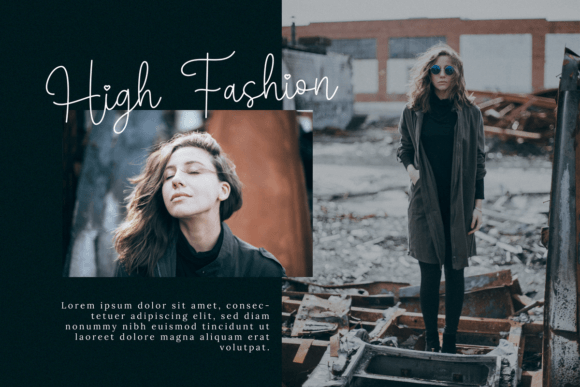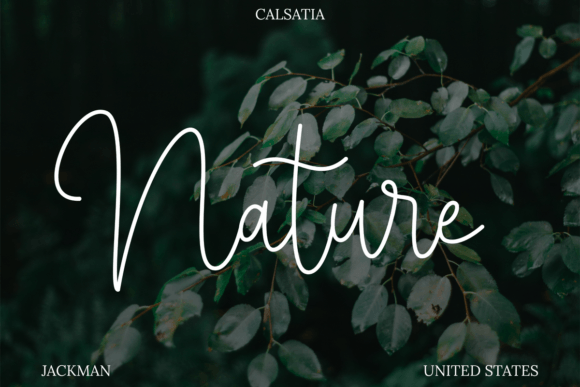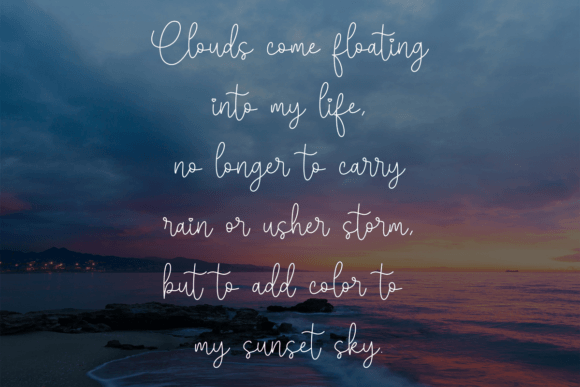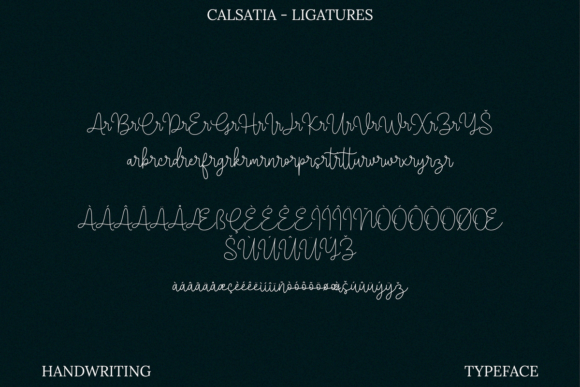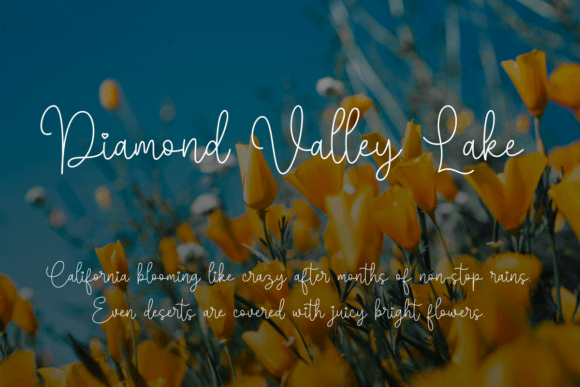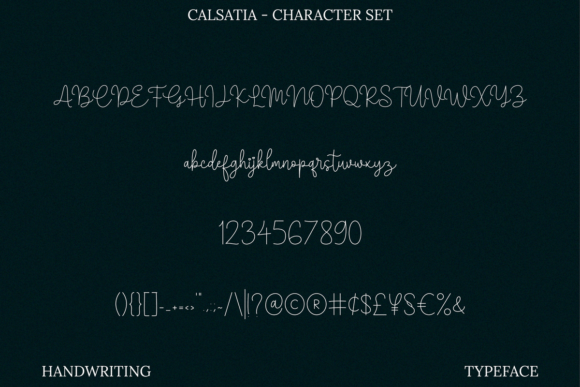
Discover the Elegance of Calsatia Font: A Modern Handwritten Marvel
Have you ever been in the middle of a design project, and suddenly, you’re stuck on finding the perfect font? I recall a recent experience where I was working on a wedding invitation design, and my client specifically asked for a handwritten font that exuded elegance and sophistication. After scouring through numerous font libraries, I stumbled upon Calsatia Font, and it instantly became my go-to choice. In this article, I’ll share my journey with Calsatia, its features, and how you can make the most of this beautiful font in your designs.
A Personal Review of Calsatia Font
Calsatia Font has quickly become a favorite in my design arsenal, and here’s why:
- ✨ Elegant and Sophisticated: Calsatia boasts a flowing, handwritten style that adds a touch of elegance to any design.
- ✅ Versatile: It’s perfect for a wide range of projects, including wedding invitations, thank you cards, quotes, greeting cards, logos, business cards, and more.
- ✅ PUA Encoded: The font is PUA encoded, making it easy to access all glyphs and swashes.
- ✅ Timeless Style: Calsatia’s distinct style is both modern and timeless, ensuring your designs won’t go out of fashion anytime soon.
While Calsatia is an excellent font, there are a few minor quirks to be aware of:
- ⚠️ Glyph Overload: With so many glyphs and swashes available, it can be overwhelming to navigate and find the perfect one for your design.
- 🤔 Pairing Challenges: As with any script font, pairing Calsatia with other fonts can be tricky. You may need to experiment with different combinations to find the perfect match.
The Story Behind Calsatia Font
Calsatia Font was designed with the intention of creating a modern, handwritten font that exudes elegance and sophistication. The designer aimed to craft a font that would be versatile and suitable for a wide range of projects, from formal events to creative endeavors. The result is a beautiful, flowing script font that adds a touch of class to any design.